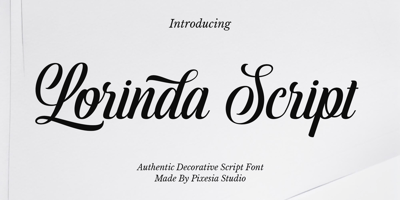
Lorinda Script Font Family was designed by Abul Almaududi and published by Pixesia Studio. Lorinda Script contains 1 styles and family package options. Introducing Lorinda Script – Bold Script FontLorinda Script is a strong and bold script font. It is crafted with precision and passion, offering a stunning blend of classic charm and contemporary flair. With its striking strokes and graceful curves, this font adds a touch of sophistication to any project.Lorinda Script is perfectly suited for branding, logotypes, tshirt design, quotes, labels, social media posts, advertisements, product packaging, product designs, label, poster, photography, watermark, invitation, stationery and any projects that demand attention and style.FEATURES- Stylistic Alternates- Ligatures- Uppercase and Lowercase letters- Numbering and Punctuations- Works on PC or Mac- Simple Installation- PUA Encoded Characters – Easily accessible without additional design software.- Support Adobe Illustrator, Adobe Photoshop, Adobe InDesign, also works on Microsoft Word- Multilingual Support including Afrikaans, Albanian, Basque, Catalan, Danish, Dutch, English, Estonian, Faroese, Filipino, Finnish, French, Galician, German, Icelandic, Indonesian, Irish, Italian, Malay, Norwegian BokmÃ¥l, Portuguese, Spanish, Swahili, Swedish, ZuluHope you Like it.Thanks.